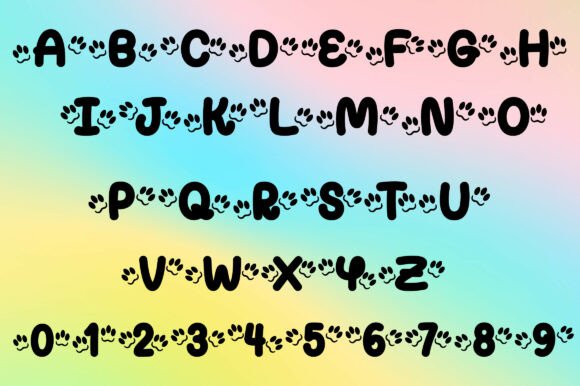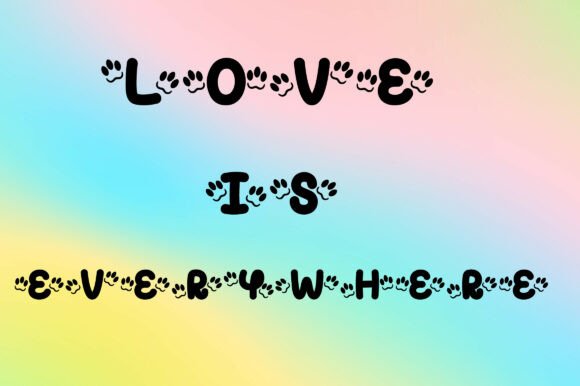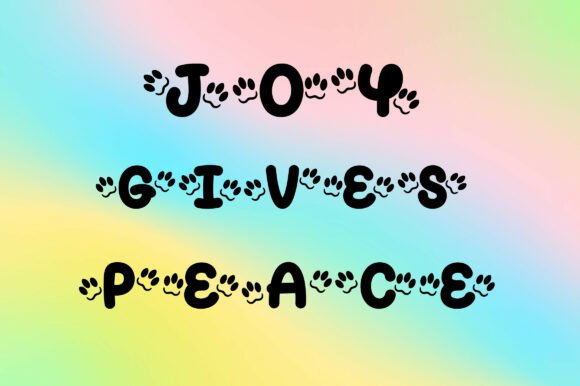
The Ultimate Guide to Alexandra Font: Elevate Your Designs with Charm and Personality
Have you ever been in the middle of a design project, and suddenly, you just can’t seem to find the right font? I recall a particularly frustrating experience while working on a branding project for a boutique client. The brief was simple: create a logo that exuded elegance, sophistication, and a dash of playfulness. Hours turned into days, and days into weeks, as I scoured font libraries, but nothing seemed quite right. That was until I stumbled upon the Alexandra Font. It was love at first sight! ✨
An Honest Review of Alexandra Font
- ✅ Versatility: This decorative font is incredibly versatile, making it perfect for a wide range of creative applications, from logos and posters to branding, packaging, invitations, and social media graphics.
- ✅ Unique Style: Alexandra Font brings a level of charm, fun, and personality to any project, setting it apart from more traditional typefaces.
- ✅ Comprehensive Character Set: Featuring uppercase English letters A–Z and numbers 0–9, this font provides endless opportunities for creative expression.
While Alexandra Font is a stunning addition to any design project, there are a few things to keep in mind: ⚠️ It primarily features uppercase letters, which might limit its use in body text or applications requiring extensive writing. Additionally, some users might find the font’s decorative nature too bold for certain projects, requiring a more subtle approach.
Another consideration is the potential for overuse of the font’s stylistic features. While it’s tempting to use every available glyph and alternate, restraint is key to maintaining a clean and effective design. 🤔
A Practical Guide to Using Alexandra Font
- Take advantage of OpenType features, such as glyphs and stylistic alternates, to add depth and uniqueness to your design.
The Backstory Behind Alexandra Font
While the origins of Alexandra Font are shrouded in mystery, it’s easy to imagine a designer with a passion for elegance and whimsy creating such a beautiful typeface. Perhaps they were inspired by vintage posters, elegant wedding invitations, or the intricate details of antique typography. Whatever the inspiration, the result is a font that effortlessly combines style, charm, and personality.
Q: What type of projects is Alexandra Font best suited for?
A: Alexandra Font is perfect for creative projects that require a touch of elegance, fun, and personality, such as logos, posters, branding, packaging, invitations, and social media graphics.
Q: Does Alexandra Font include any special features?
A: Yes, Alexandra Font features uppercase English letters A–Z and numbers 0–9, offering a comprehensive character set for creative expression.
Q: Can I use Alexandra Font in both digital and print projects?
A: Absolutely! Alexandra Font is versatile and can be used in both digital and print projects, making it a valuable addition to any designer’s toolkit.